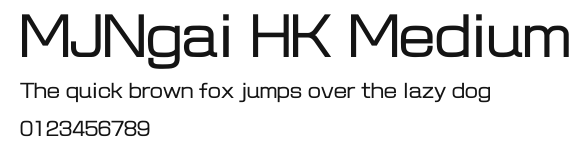
• Font Name: MJNgai HK Medium
• Full Font Name: MJNgai HK Medium
• Manufacturer: Monotype Imaging Inc.
About MJNgai HK Medium.ttf
MJNgai HK Medium.ttf is a modern, elegant sans-serif font designed for ultimate readability and visual harmony. Perfect for branding, headlines, web design, and print materials.